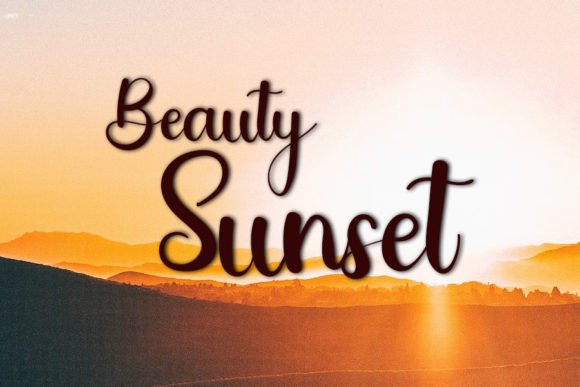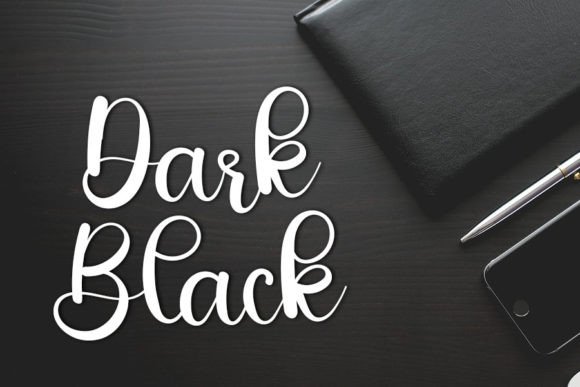
Walking Font
About Walking Font
Walking is a fresh and beautiful font, good for your design purposes such as Youtube banners, Cover Logo Mockups, Wedding Invitations, Id Cards, Flayer, and Crafts. By using this font, your business will progress and develop. Apart from that, this font is simple and unique.